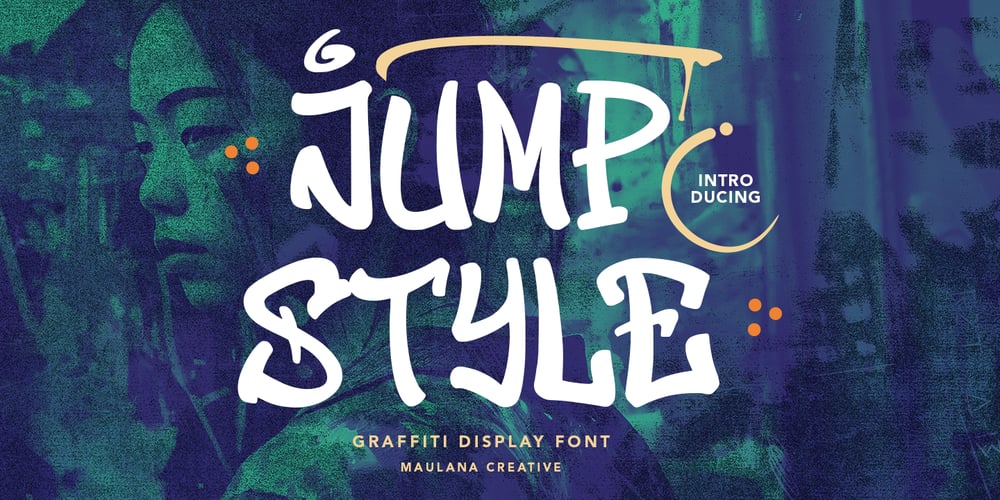
Jump Style
Jump Style font
Jump Style Font Family was designed by Gilang Maulana and published by Maulana Creative. Jump Style contains 1 styles and family package options. Give your designs an graffiti display Font handcrafted feel. “Jump Style Graffiti Display Font” is perfectly suited to stationery, logos and much more.Many Thanks,Maulana Creative